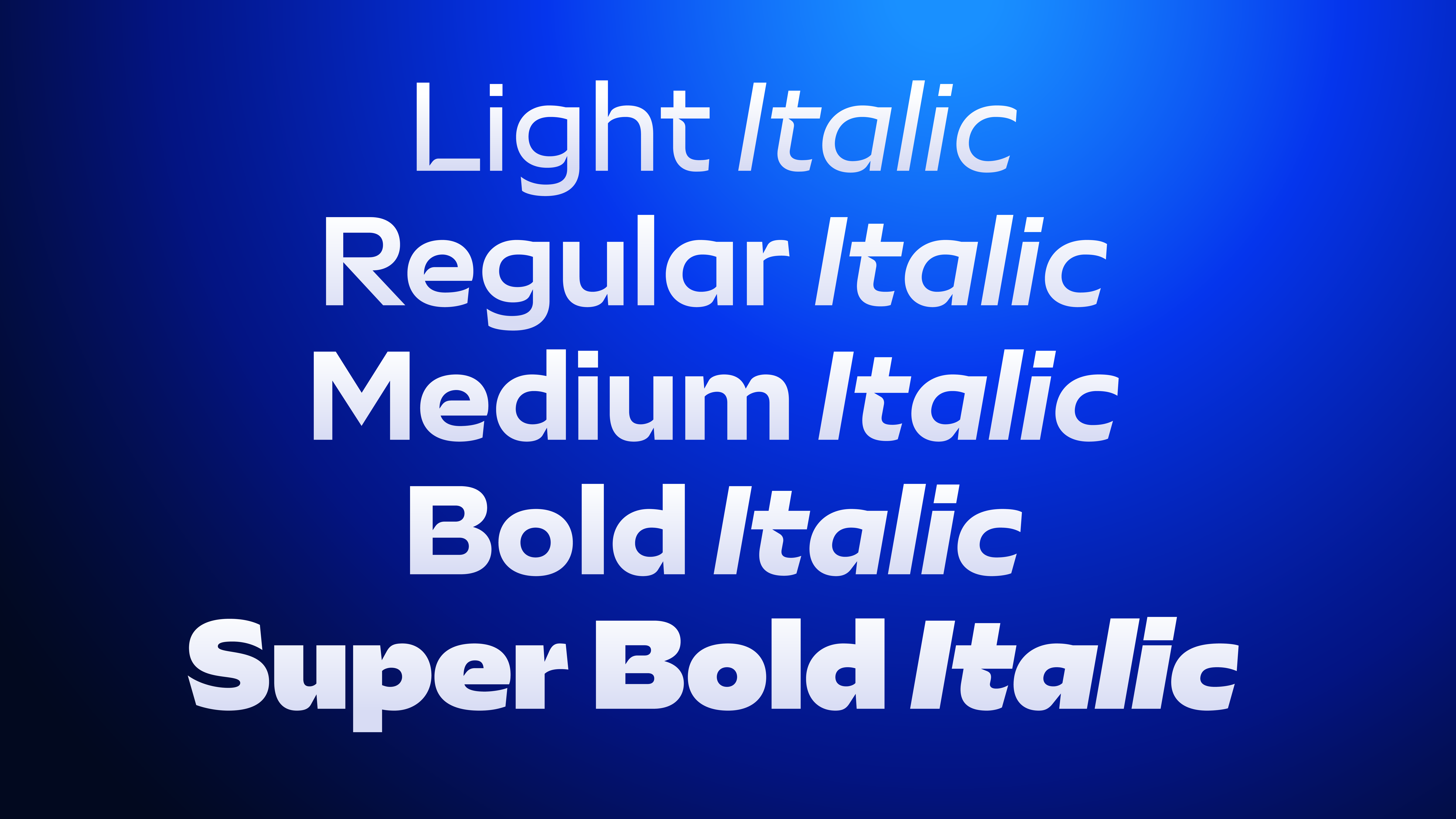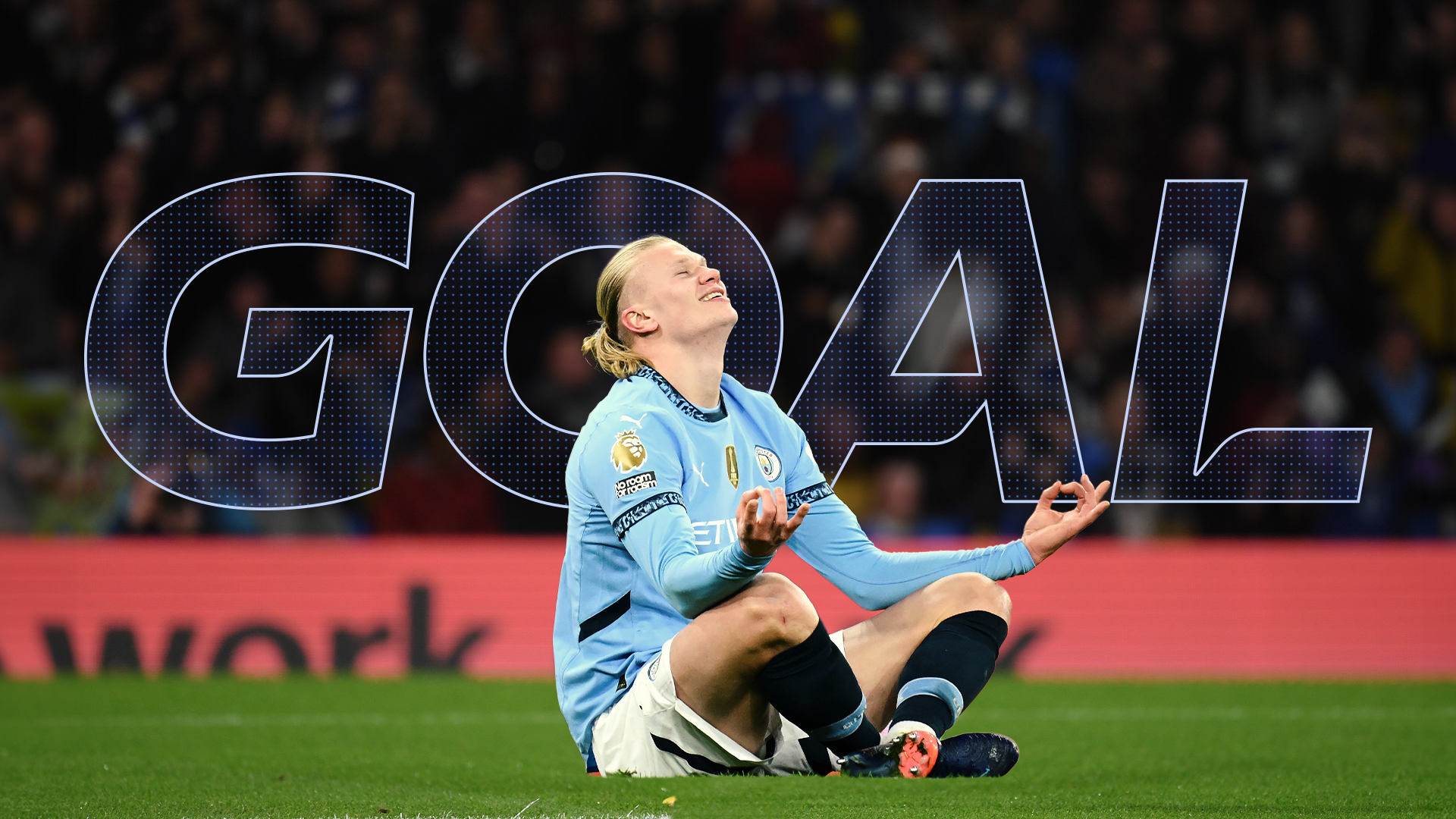
Sky Sports
Sky Sports needed a new, ownable typeface that could unify their sub-brands, improve brand consistency and bring a more welcoming tone to their typography. We were asked to create a flexible font family that could handle everything from high-impact headlines to dense tables of stats.
Sky Sports is one of the most recognised names in global sports broadcasting. With millions of viewers across the UK and beyond, it covers a huge range of live events, highlights, analysis and breaking news across football, Formula 1, cricket, darts, boxing and many more.
As the brand has grown, so has the need for a more unified visual voice. One that can speak with authority across all sports, channels and formats, while staying true to Sky’s values of being welcoming, entertaining and creative.
Working with F37® has been a genuinely inspiring experience. From the outset, they collaborated brilliantly, taking the time to understand my vision while bringing their own unique expertise and creativity to the process. Their ability to craft type with both personality and precision added immense value to the Sky Sports re-brand. The final font is not only beautifully designed but also packed with the kind of character and attention to detail that gets noticed. I’m confident it will become a defining part of the next chapter in Sky Sports’ iconic identity.
Ceri Sampson, Group Executive Creative Director — Sky
The brief
Over time, Sky Sports’ sub-brands had each adopted their own visual language, including six separate sport-specific fonts. Each had its own tone and visual quirks, but they shared some key limitations: they were all-caps, only available in a single weight, and each was a modified version of an external typeface. This created brand inconsistency and limited Sky’s creative control.
More importantly, none of these fonts felt truly ownable. And none of them had the ability to flex across the full range of Sky Sports content, from bold on-screen headlines to detailed stats and editorial features.
We were briefed to created a single, unified typeface that could replace all six and become a recognisable, distinctive asset for the Sky Sports brand. It needed to work alongside the core Sky brand font, feel more welcoming than the traditionally masculine tone of sports typography and convey the energy of elite competition.
It also had to be highly functional. A font that could perform just as well in dramatic headlines as in dense broadcast graphics. Legible, flexible and recognisable as the voice of Sky Sports.
Delivery
We built the typeface on a humanist skeleton for warthm, clarity and versatility. This gave it a friendlier and more welcoming feel than the previous geometric-style fonts, while still capturing the energy of sport.
Angular cuts, sharp terminals and pointed vertices bring a sense of movement, referencing the dynamics of their sports coverage. These were balanced by rounded corners, inspired byt the new Sky brand roundel, which helped to soften the tone and feel more cohesive with the wider brand system.
The final family includes five weights, from Light to Super Bold, each with matching italics. A condensed style with italic was created for tighter layouts and on-screen use, where space might be limited. In addition, a broadcast-specific version was created, featuring simplified and incision-less numerals to provide better legibility in data-rich environments like fixtures and stats tables.
The regular weight was designed as the hero cut, to be used across most marketing and editorial applications. The Super Bold brings maximum impact for dramatic headlines and key moments, while the Condensed provides versatility in tight settings. With open apetures, generous counters and a strong x-height, the typeface performs confidently across all media and sizes.
The result is a versatile, energetic and distinctly welcoming font family that gives the whole of Sky Sports a bold new typographic voice.